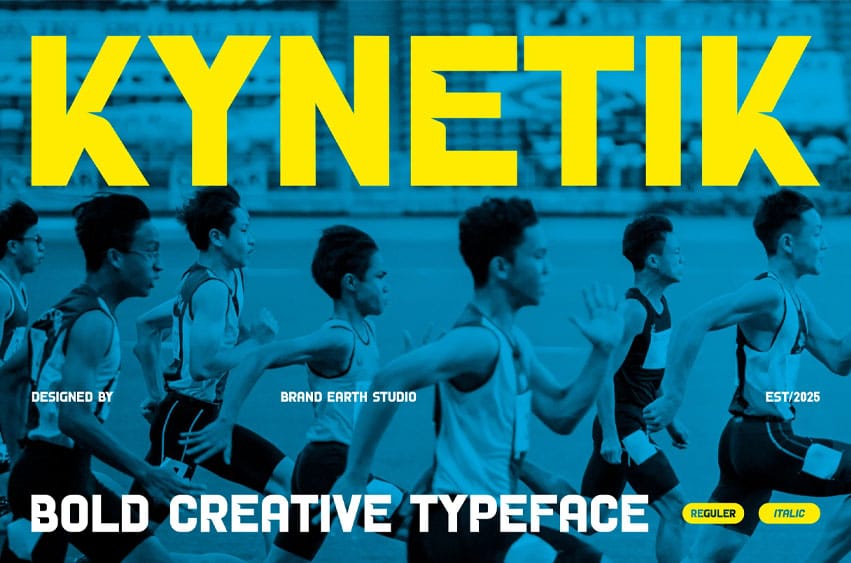
Kynetik Font is a bold and dynamic typeface inspired by speed, energy, and competitive spirit. Its powerful, blocky forms with clean cuts and strong lines make it perfect for headlines, athletic branding, posters, and digital campaigns. The font radiates movement and intensity, making it ideal for sports themes, activewear designs, and bold visual identities.
With its commanding presence and excellent readability, Kynetik injects a sense of motion and strength into any project, energizing the overall design.
- Regular & Italic Font Style
- Ligatures & Alternate